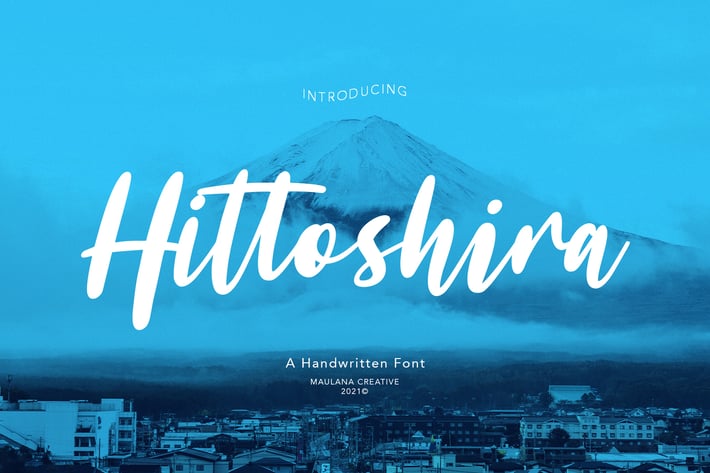
Hittoshira Handwritten Script Font
Hittoshira is casual handwritten script font, with bold stroke, slanted and fun character. It has Opentype features ligatures of character, To give you an extra creative work. Hittoshira font support multilingual more than 100+ language. This font is good for logo design, Social media, Movie Titles, Books Titles, a short text even a long text letter and good for your secondary text font with sans or serif. Make a stunning work with Hittoshira font.